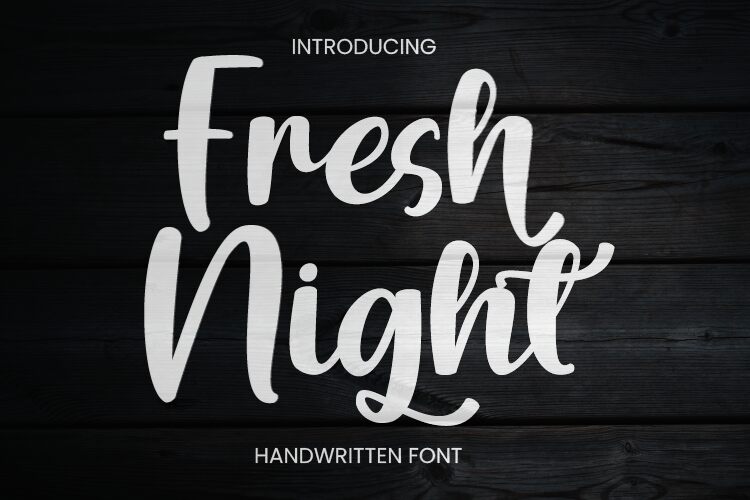
Fresh Night
Fresh Night is a captivating brush-style font that exudes a sense of effortless elegance and sophistication. Crafted by designer Rvandtype, this font's organic, flowing strokes effortlessly convey a feeling of artisanal charm and handcrafted character. Its dynamic, expressive letterforms lend themselves beautifully to a wide range of design applications, from editorial layouts and product branding to handwritten-inspired invitations and social media content.
The font's versatility shines through its ability to seamlessly transition between formal and casual contexts. Its unique personality makes it an exceptional choice for projects seeking to strike a balance between contemporary style and timeless appeal. Fresh Night's distinctive aesthetic is sure to elevate any design, leaving a lasting impression on your audience.